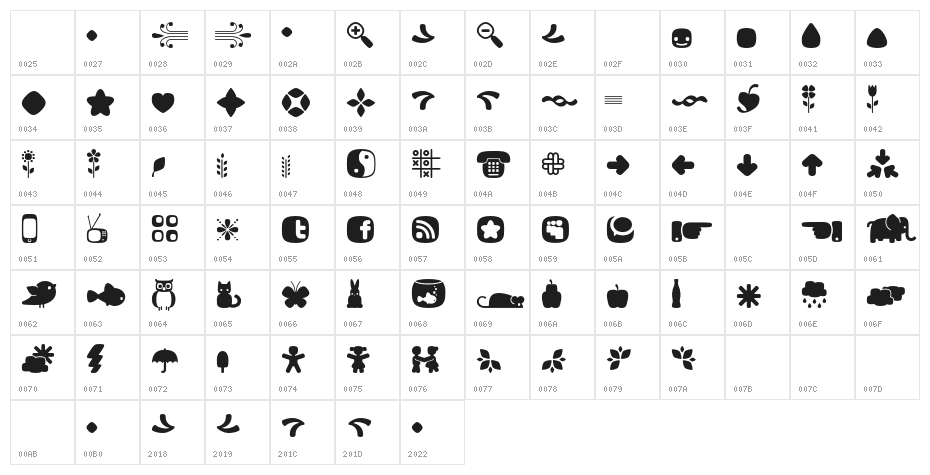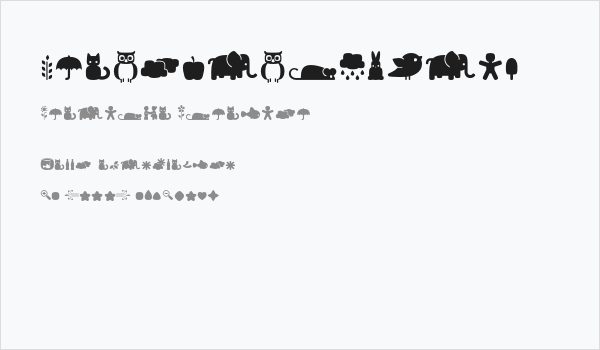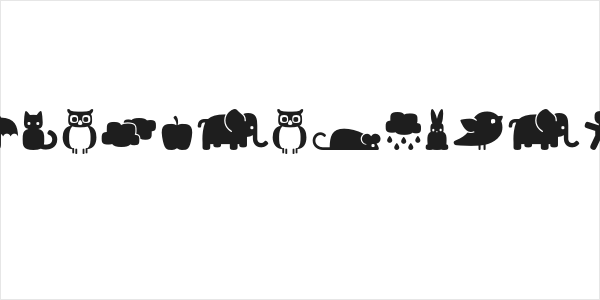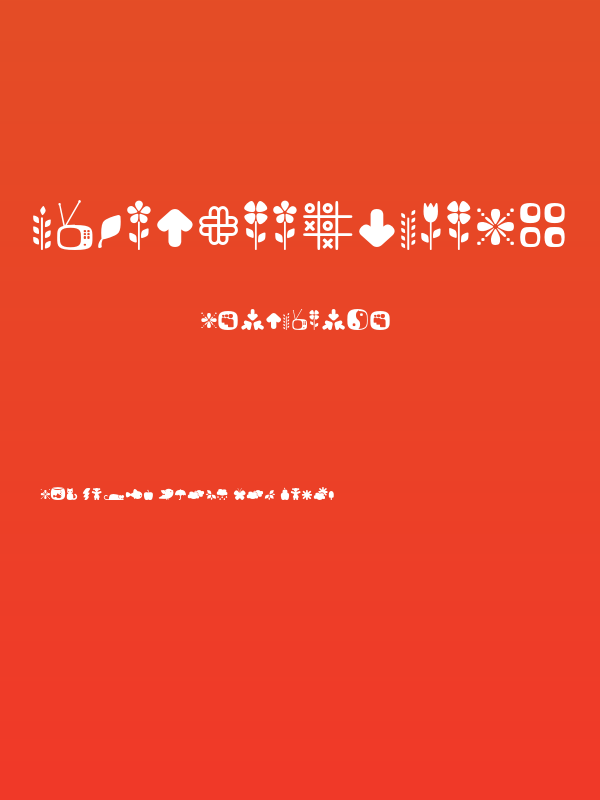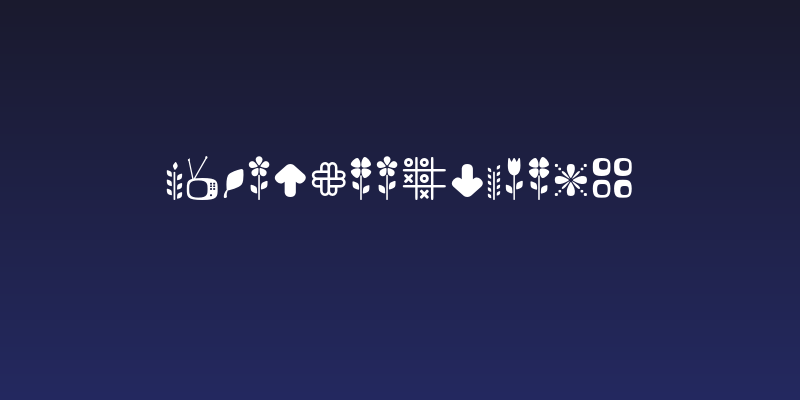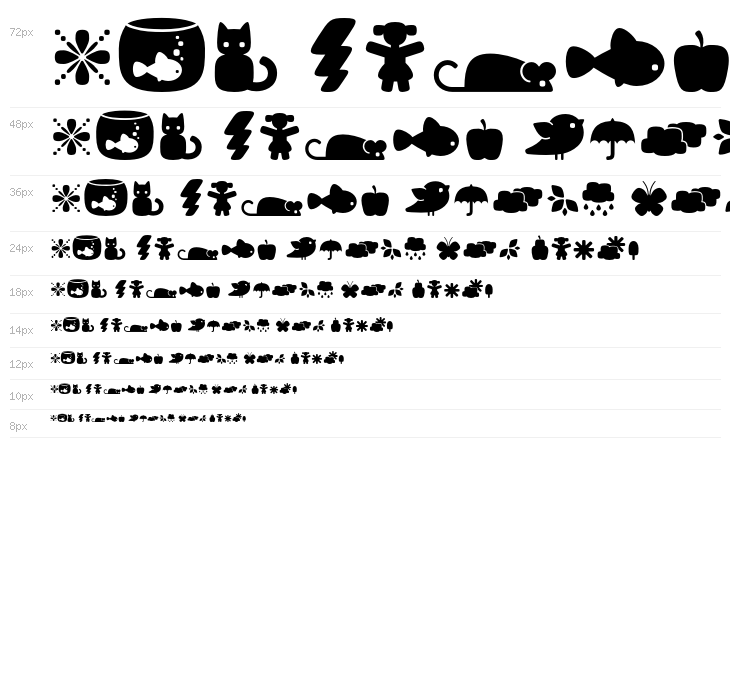
Fredokadingbats Font
Fredokadingbats Description
A playful dingbat font featuring a variety of bold, rounded pictograms including flowers, animals, weather icons, social media symbols, geometric shapes, and decorative elements. The icons are solid, high-contrast, and have a friendly, approachable style.
Overall StylePlayful, Decorative, Modern
Use CaseIcons, Decorative elements, Infographics, Branding, ChildrenÒ€ℒs materials
Proposed ProjectsChildrenÒ€ℒs books, educational materials, infographics, playful branding, decorative dividers, icon sets.